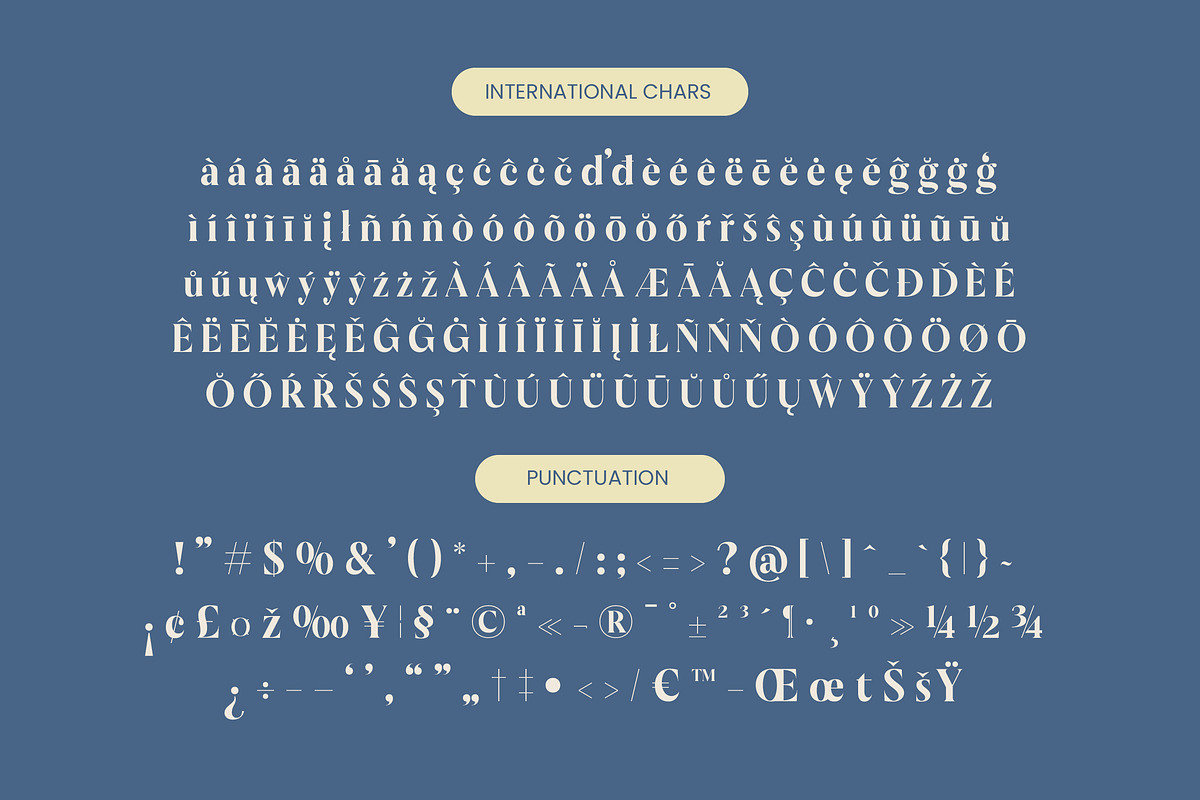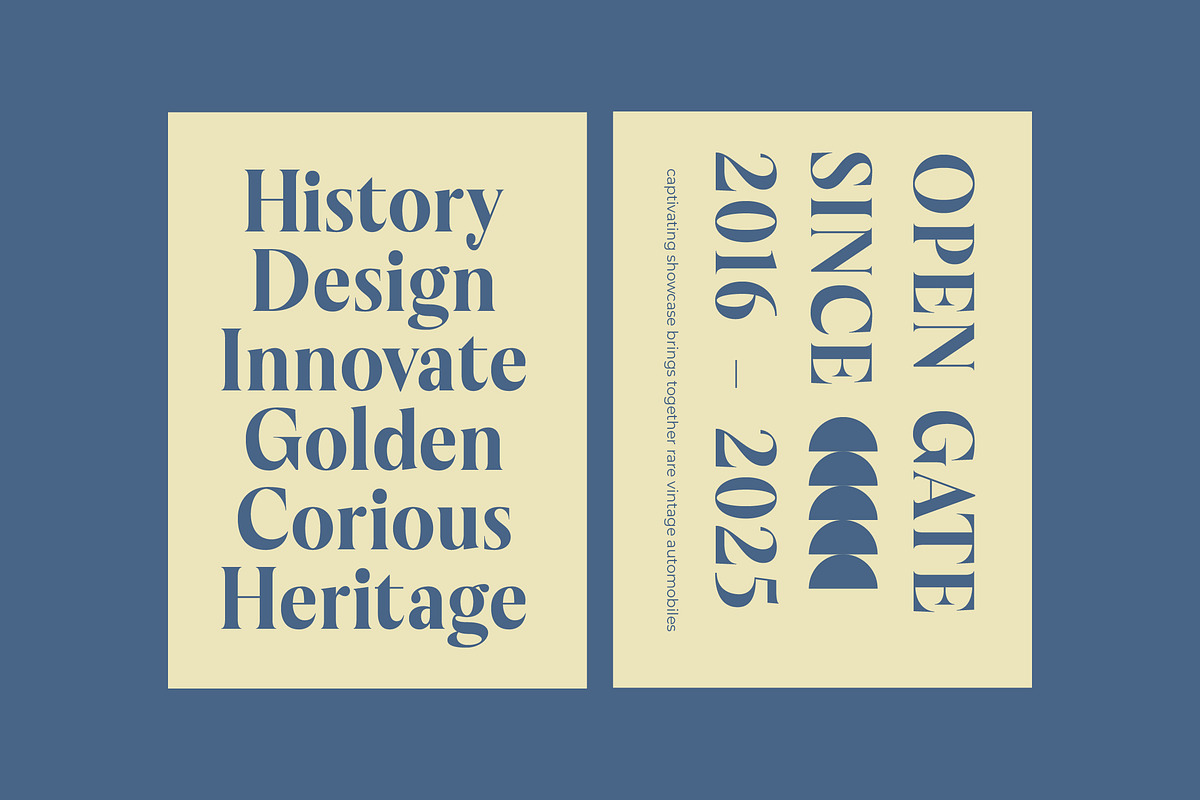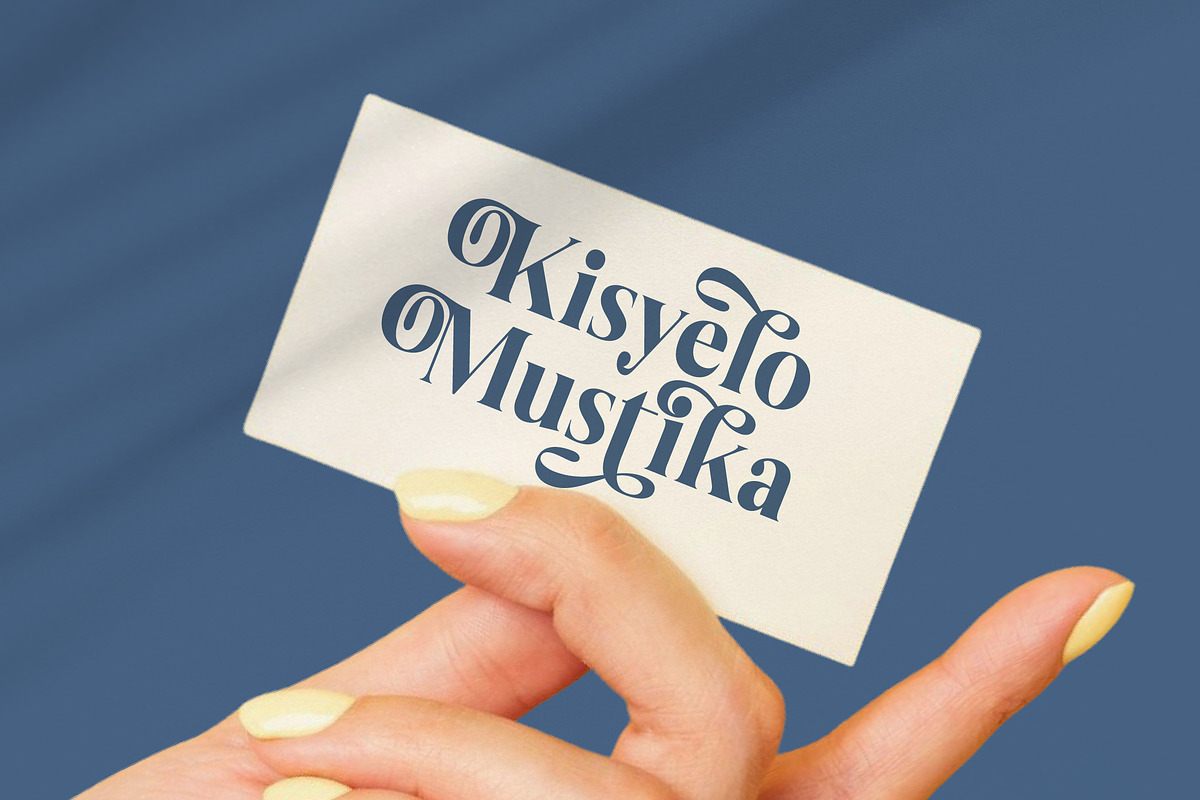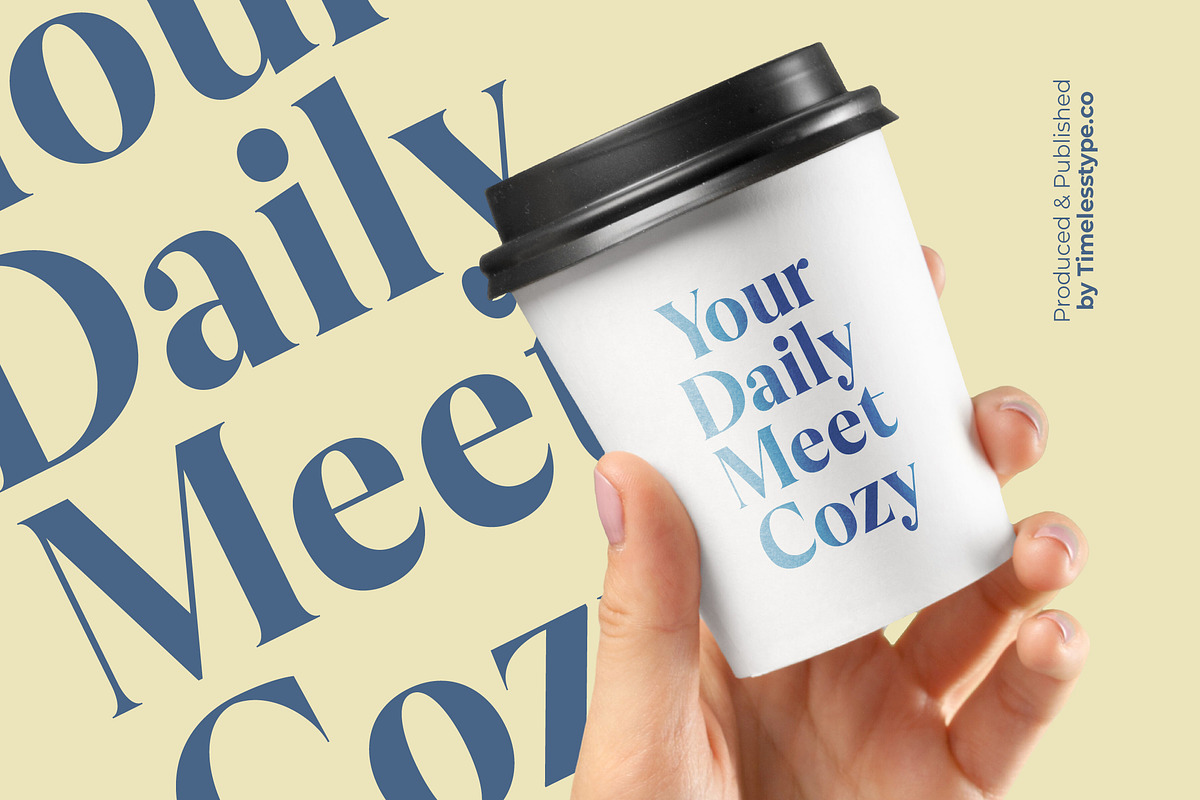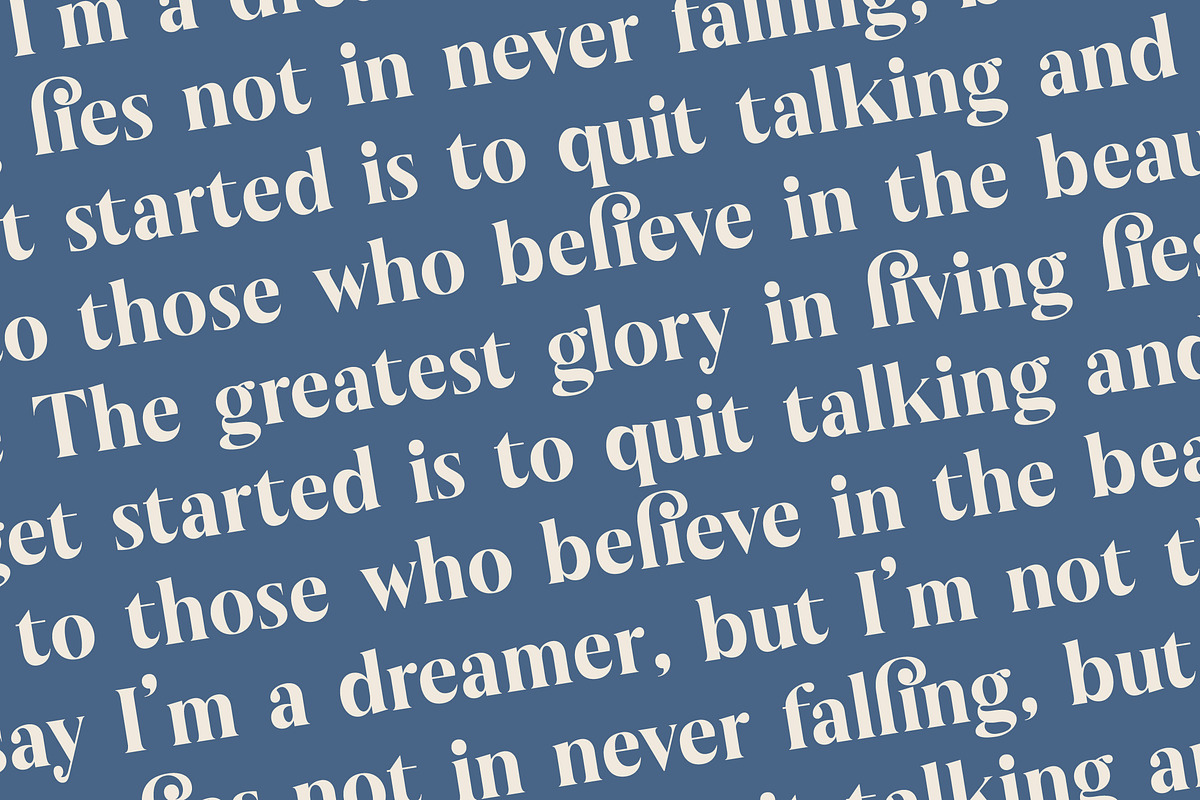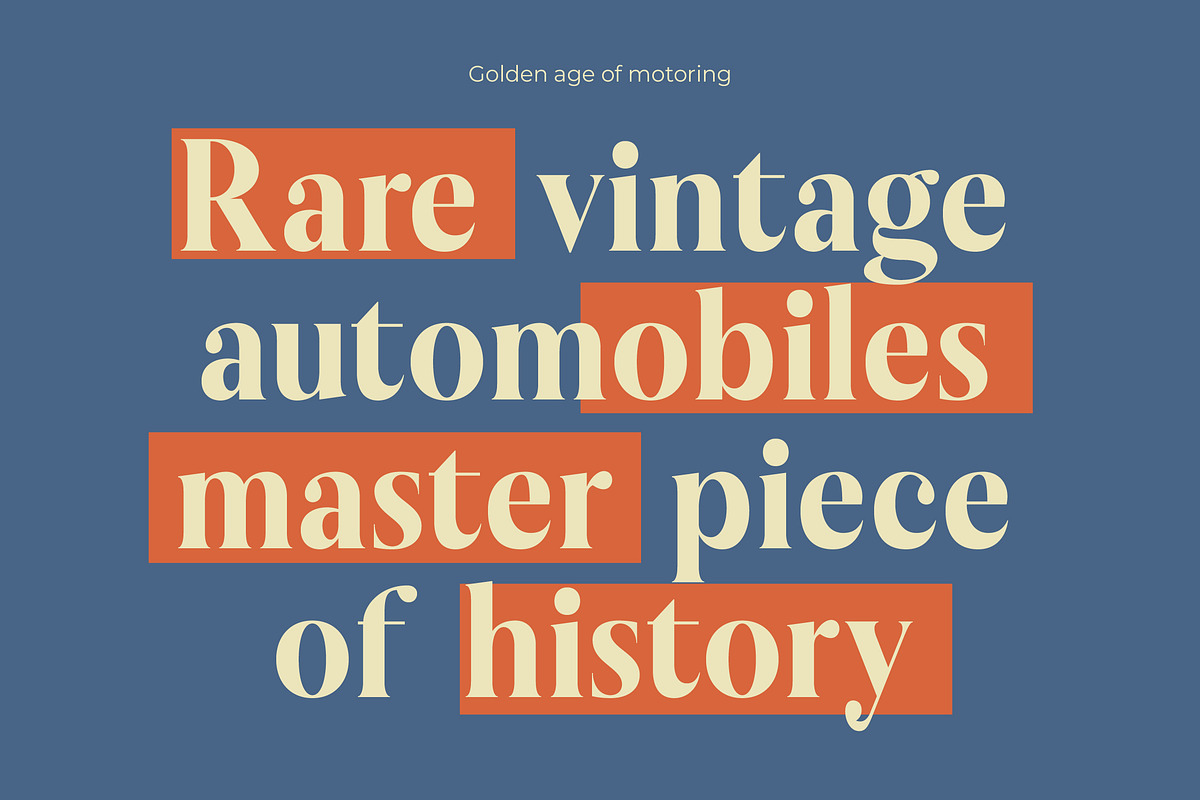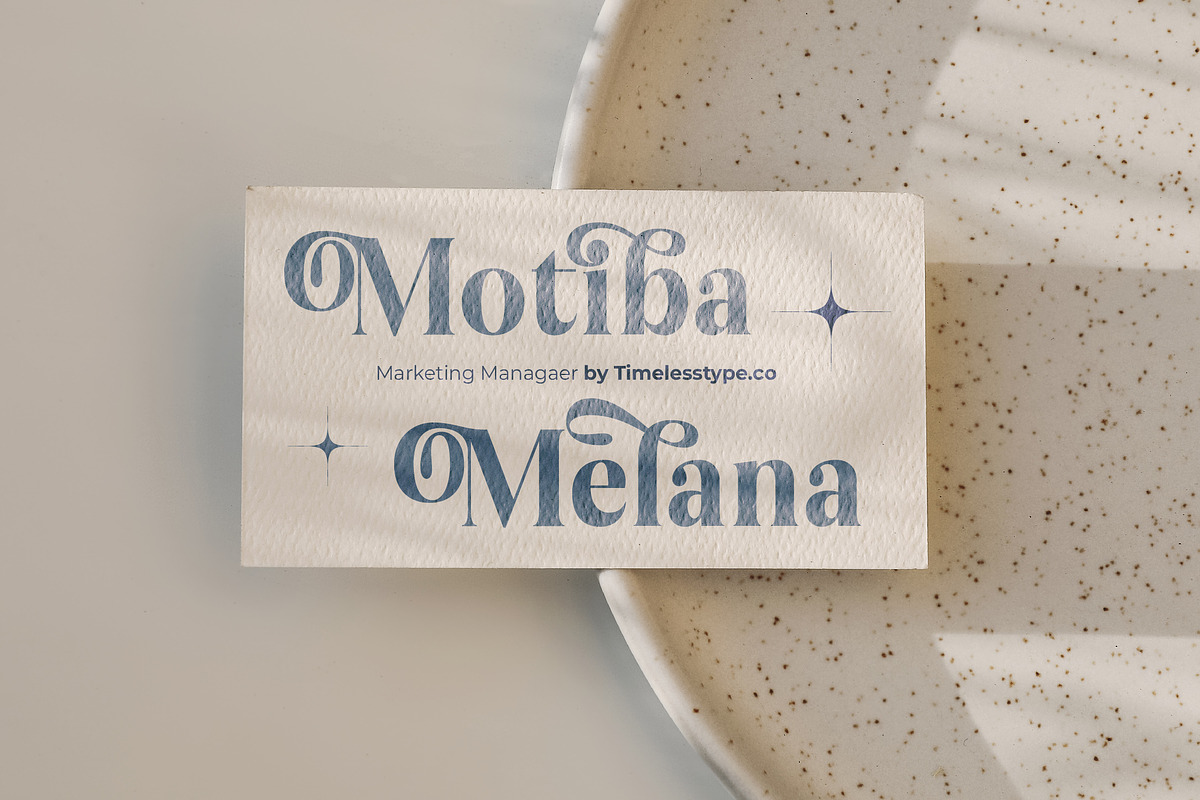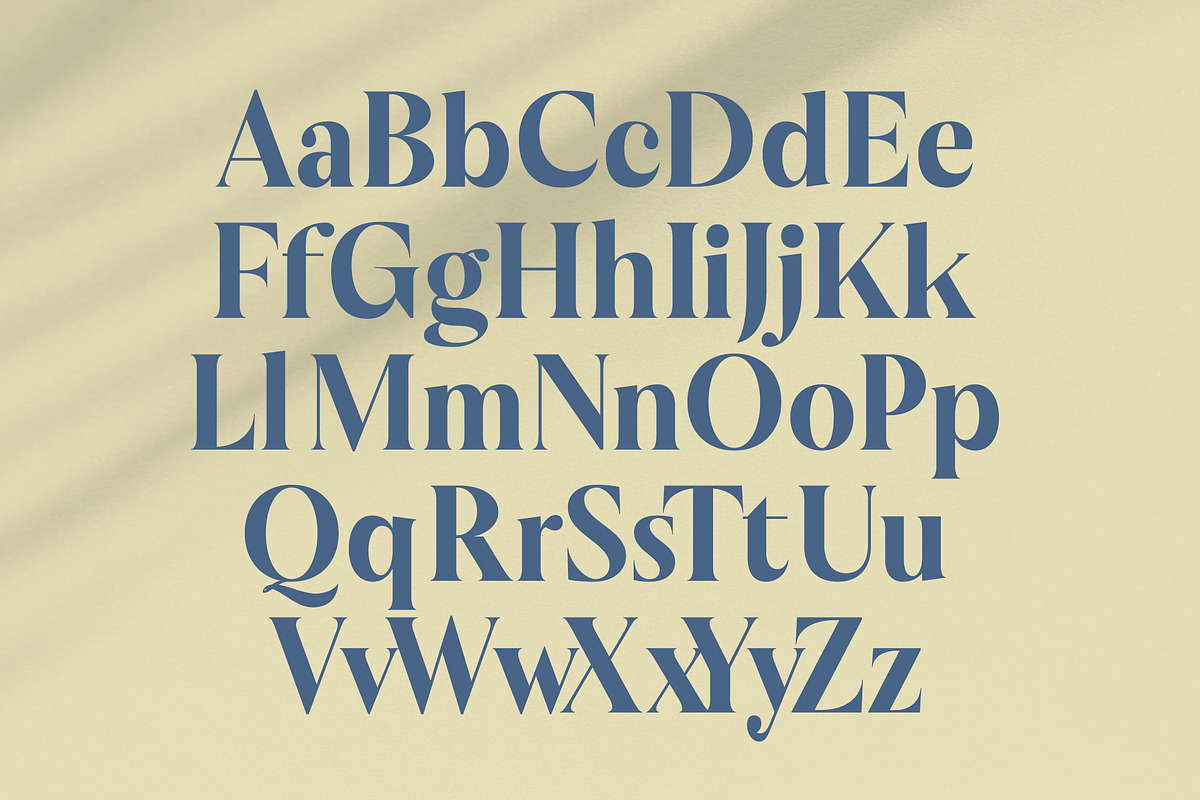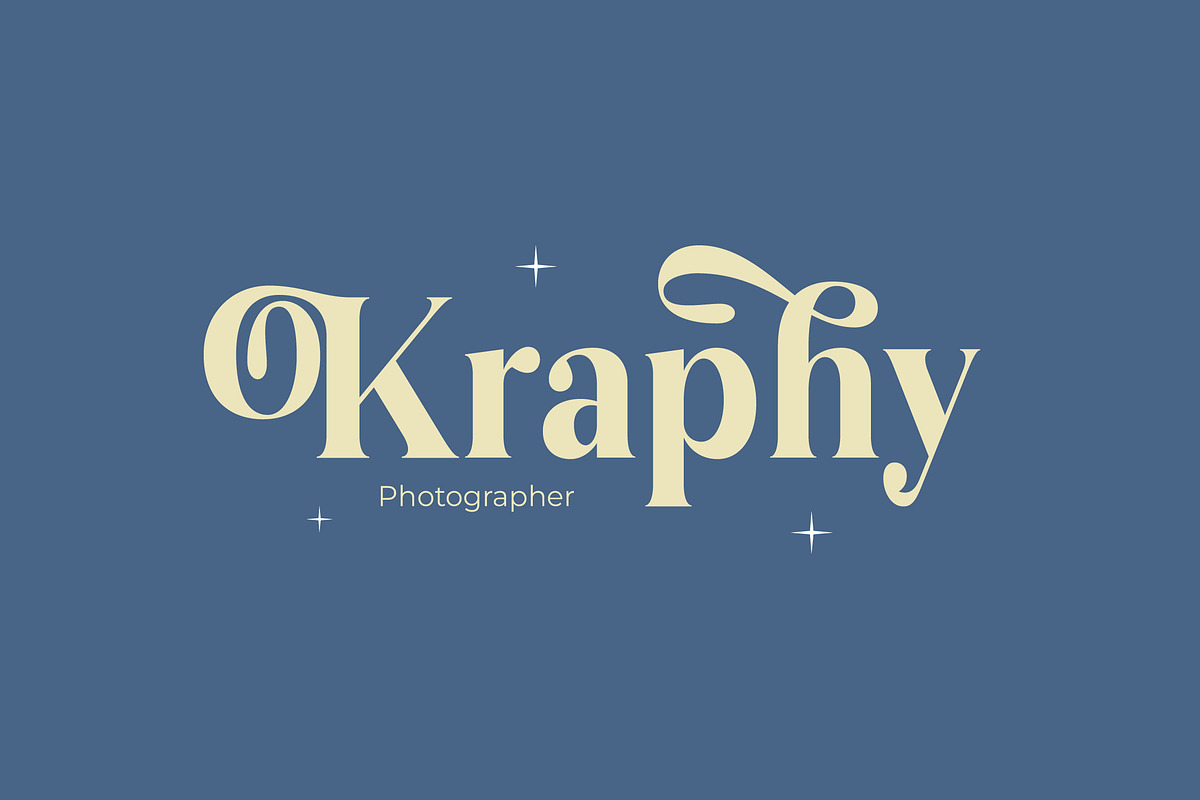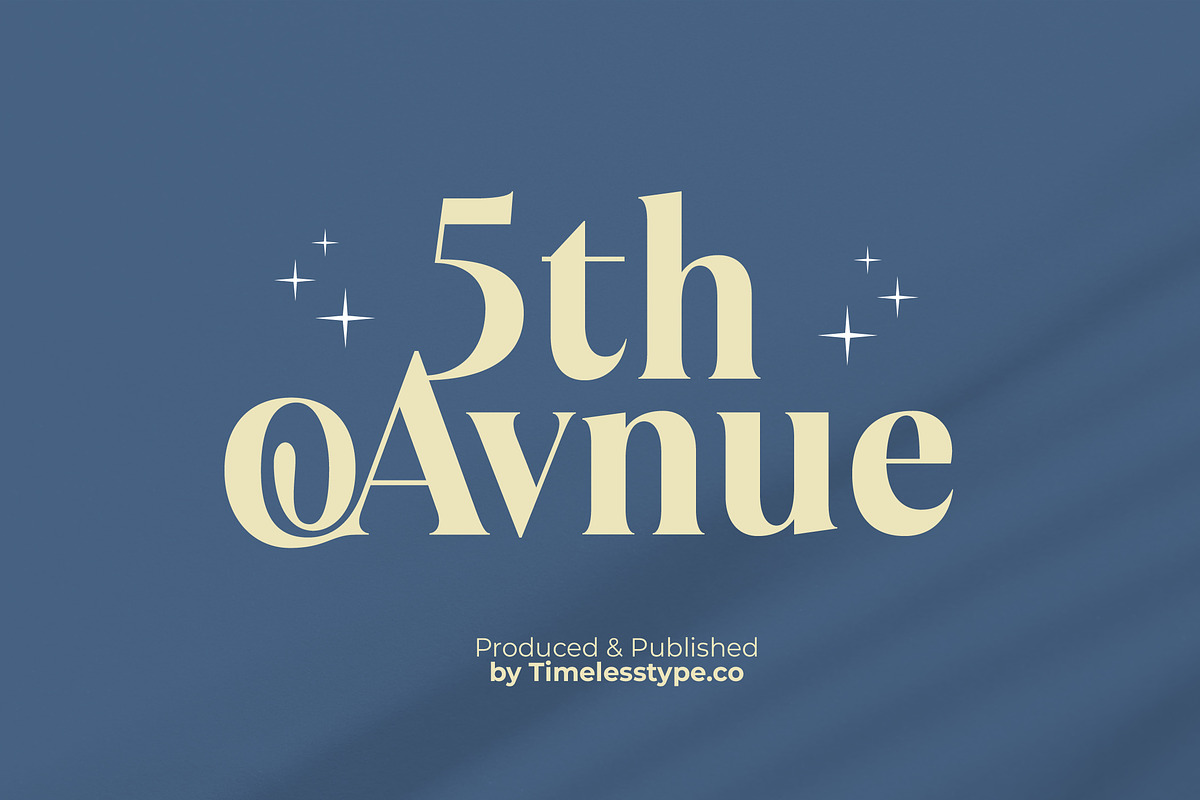
Keyalog Evelzor Modern Bold Serif
Keyalog Evelzor is a breathtaking display of sophistication, designed to command attention through its graceful curves and striking presence. This typeface transforms simple text into a curated piece of art, blending timeless aesthetics with a bold, contemporary edge.
Inspired by the golden era of editorial design mixed with contemporary high-fashion aesthetics, the atmosphere of this font evokes a sense of timeless luxury and celestial charm. It carries the weight of history while feeling perfectly at home in the digital age of premium design.
This modern serif display is defined by its high-contrast serif strokes and luxury typography feel. It provides a massive branding impact while maintaining the refined elegance of an editorial font, making it the ultimate tool for designers who refuse to compromise on style.
Tapping into the current modern serif trend, this typeface is perfect for designers seeking editorial display fonts with soul. Its character-driven typography sets it apart from generic serifs, ensuring your projects remain at the forefront of the design market.
Ideally suited for high-end logo design and premium branding projects, this font excels in diverse creative environments. It shines in sophisticated editorial layouts, luxury packaging, romantic wedding stationery, and bold fashion photography where personality is paramount.
The package includes extensive ligatures and creative alternates with beautiful swashes to enhance your creative workflow. It also features comprehensive multilingual support with international characters to ensure global design accessibility and technical excellence.
- Ligature 14 Alternate 52